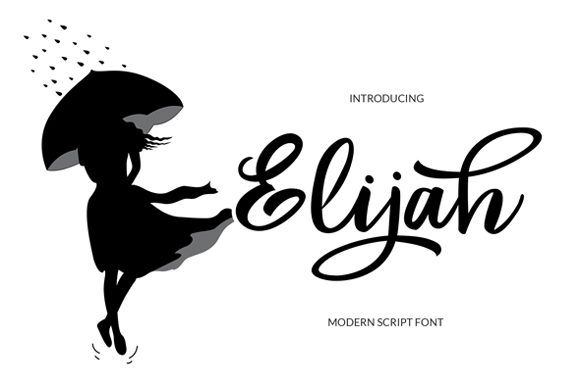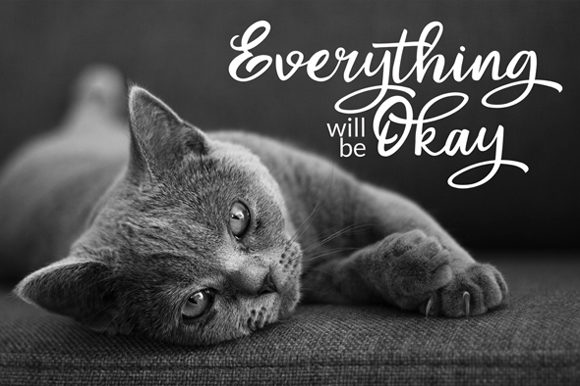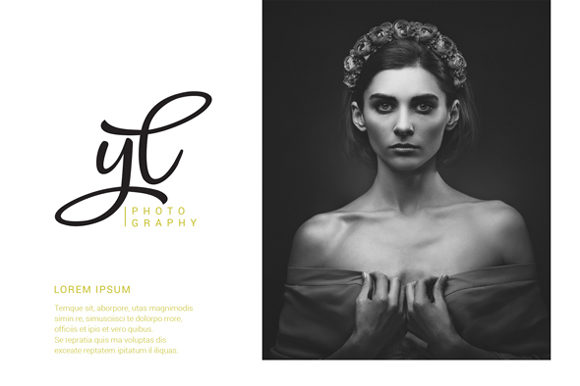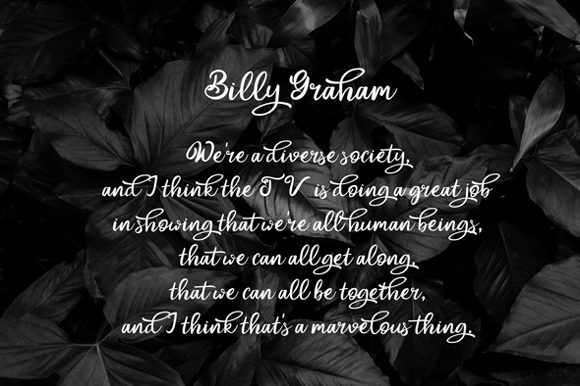
Elijah Font
Elijah is a modern script font carefully created with a touch of elegance. It will elevate a wide range of design projects to the highest level, be it branding, headings, wedding designs, invitations, signatures, logos, labels, and much more!